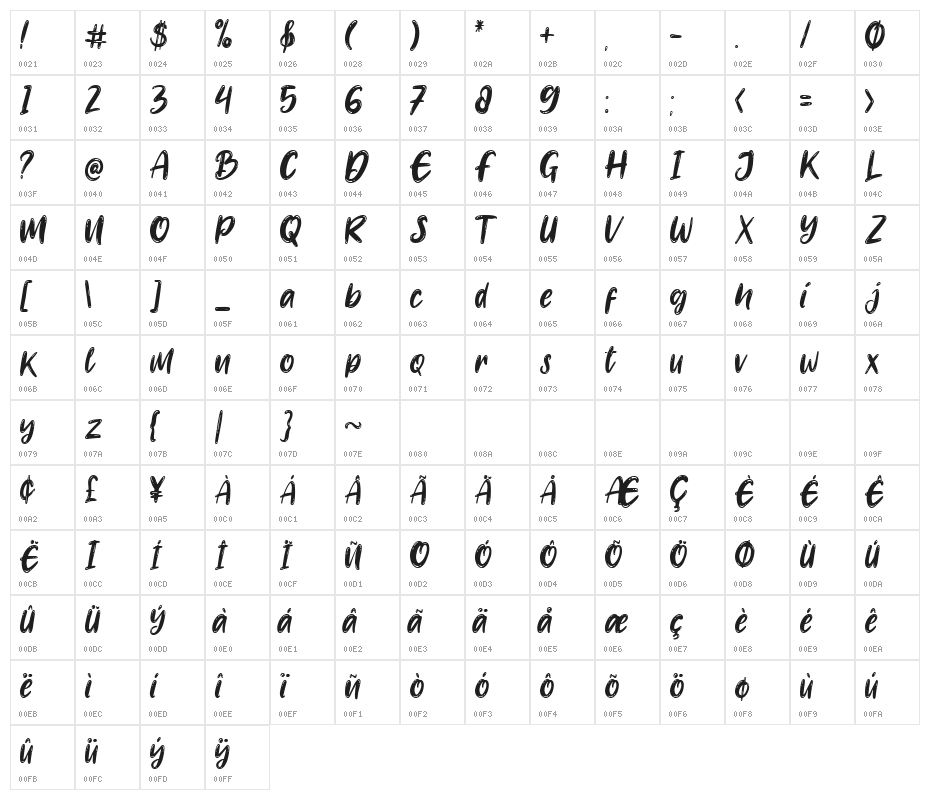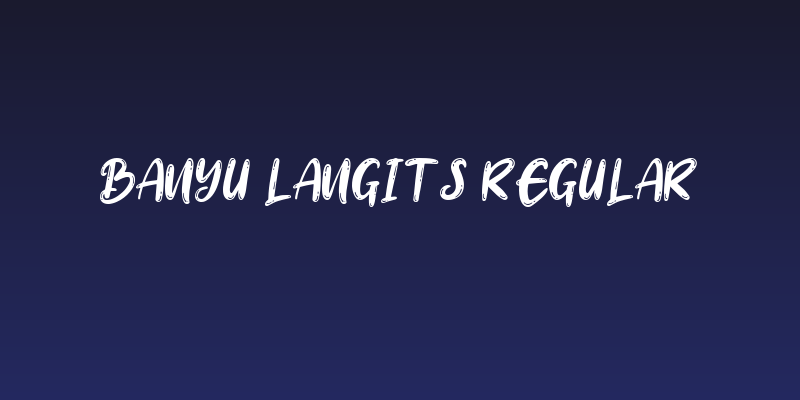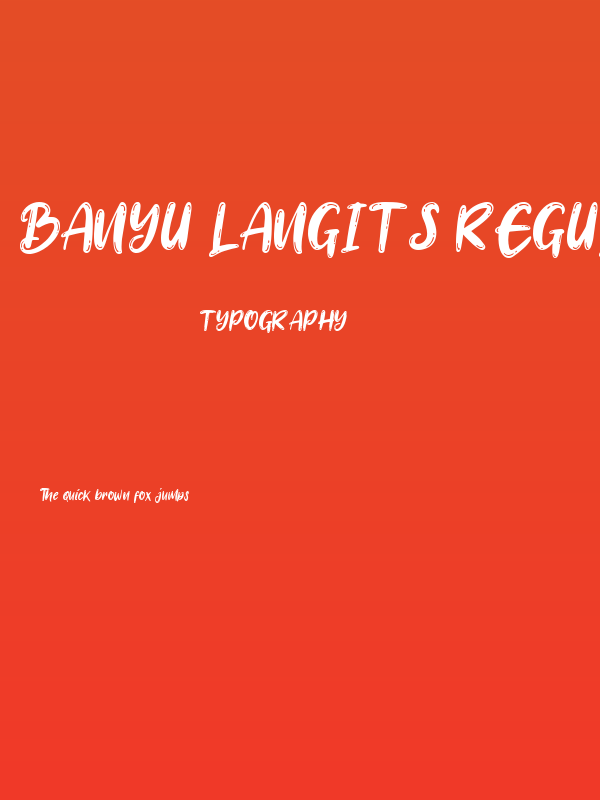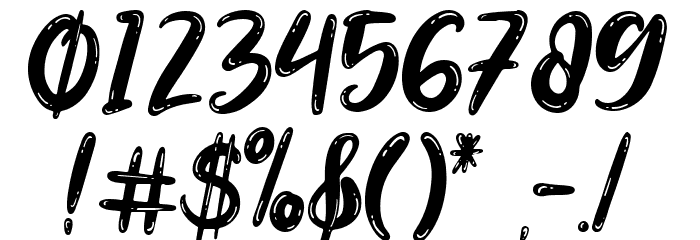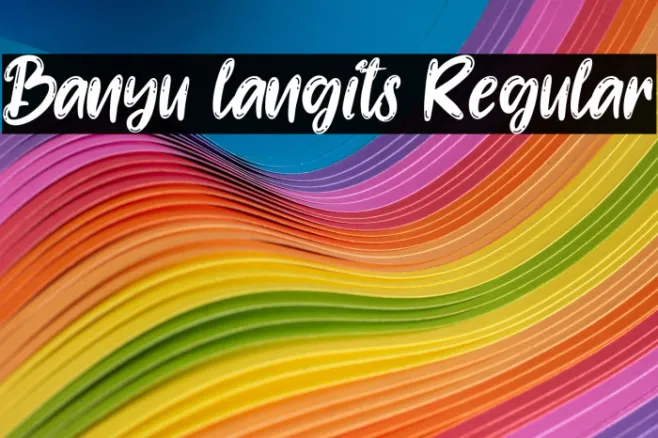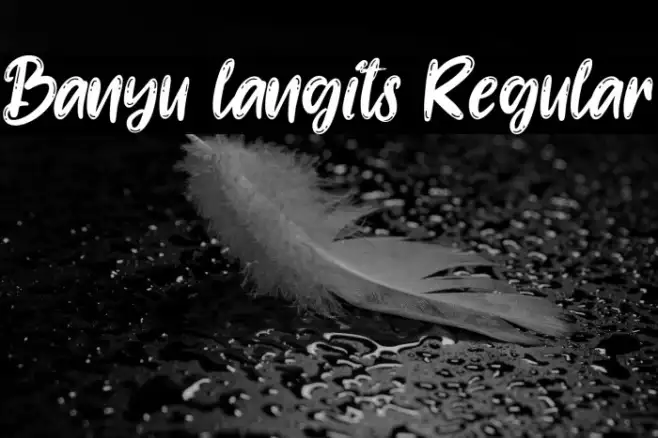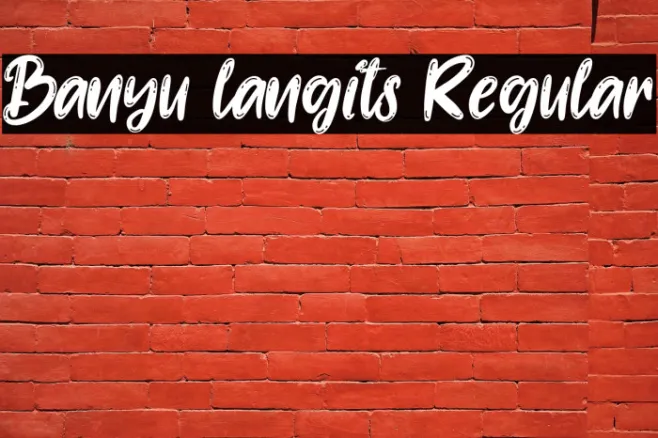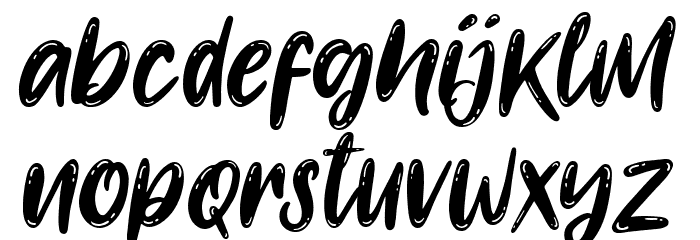
Banyu langits Regular Font
Banyu langits Regular Description
This font features a bold, handwritten style with a dynamic and energetic appearance. The letters are slightly slanted, giving a casual and informal feel. The strokes are thick and consistent, with a smooth flow that mimics natural handwriting. The uppercase and lowercase letters maintain a cohesive look, while the numbers and special characters integrate seamlessly into the overall design. This font is ideal for projects that require a personal touch, such as invitations, greeting cards, or branding materials.
| Overall Style | Casual, Energetic |
| Use Case | Logos, Headlines, Invitations |
| Proposed Projects | Ideal for invitations, greeting cards, branding materials, and any project needing a personal touch. |